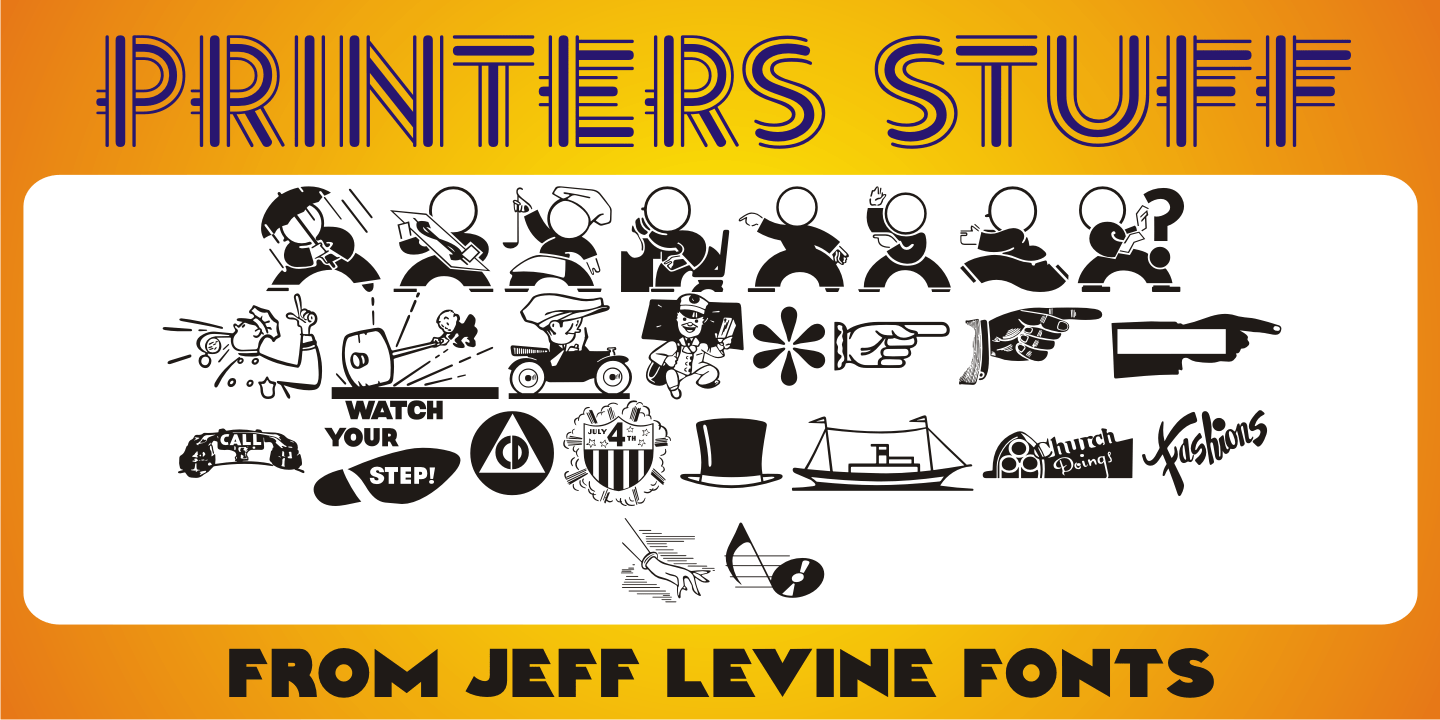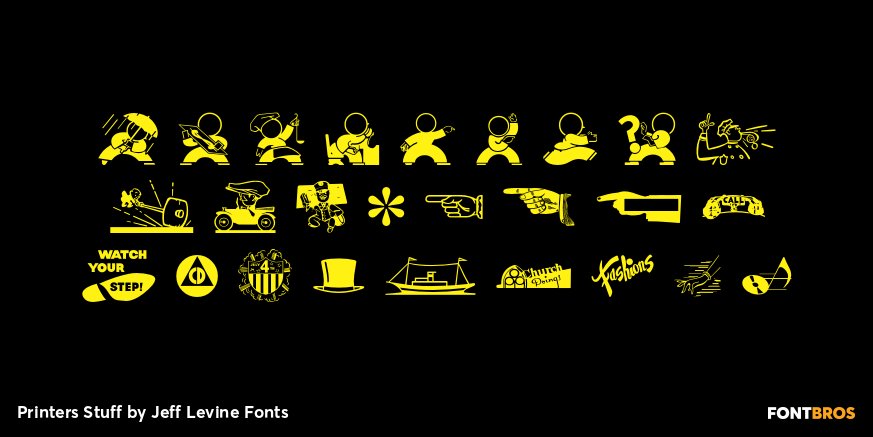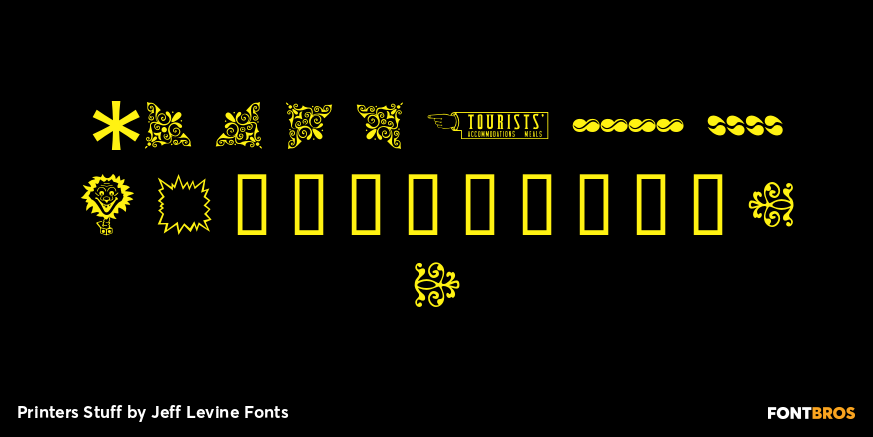
Printers Stuff
A generous assortment of cartoons, catch words, ornaments, embellishments and even a pointing hand tourist sign modeled from an actual vintage metal one round out Printers Stuff JNL.